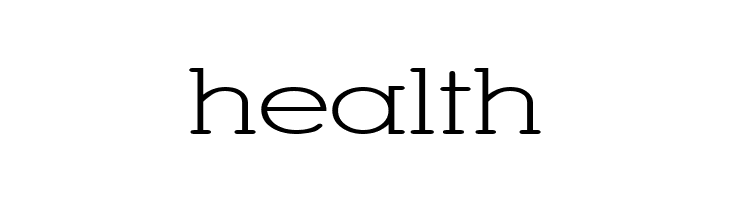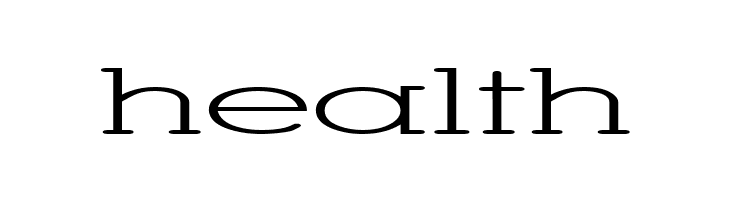
Charrington Bold Font
Font by Apostrophic Lab
A bold, rounded font with a playful and structured style.
Charrington SemiBold Font
Font by Apostrophic Lab
A clean, modern semi-bold font with a friendly and balanced design.
Charrington Strewn Font
Font by Apostrophic Lab
A modern, geometric font with clean lines and uniform stroke width.
Charrington Font
Font by Apostrophic Lab
A clean, modern font with consistent stroke width and elegant design.
Charrington Wide Font
Font by Apostrophic Lab
A modern, wide-stanced font with clean lines and balanced proportions.
Charrington Superwide Font
Font by Apostrophic Lab
A wide, elegant font with clean lines and modern style.
Charrington Narrow Font
Font by Apostrophic Lab
A narrow, elegant serif font with moderate contrast and refined style.
Charrington Posh Font
Font by Apostrophic Lab
A bold, outlined font with a three-dimensional shadow effect.
Charrington Upper Font
Font by Apostrophic Lab
A clean, geometric font with a modern and versatile style.
Charrington Outer Font
Font by Apostrophic Lab
A modern outline font with a double-line effect, offering a unique and dimensional look.
Charrington Roughened Font
Font by Apostrophic Lab
A playful, hand-drawn font with a whimsical and roughened style.